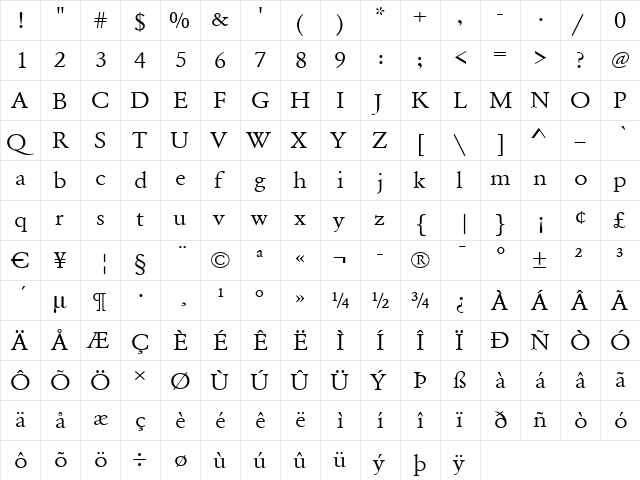
LionelBeckerExtended Regular
Design Context for LionelBeckerExtended Typeface
LionelBeckerExtended offers clean, dependable letterforms without strong stylistic allegiance, making it a practical choice for designers who need flexibility.
Pro Tip: Pair LionelBeckerExtended with a font of contrasting weight or personality to build a more expressive typographic hierarchy.